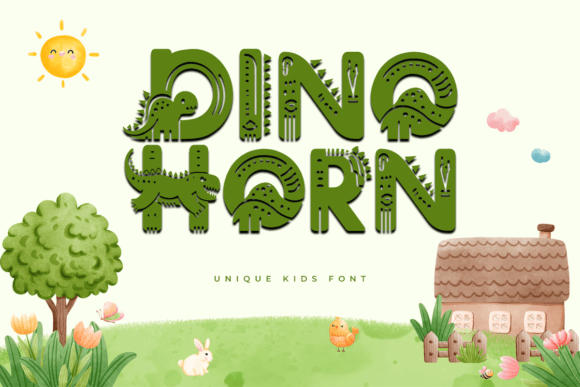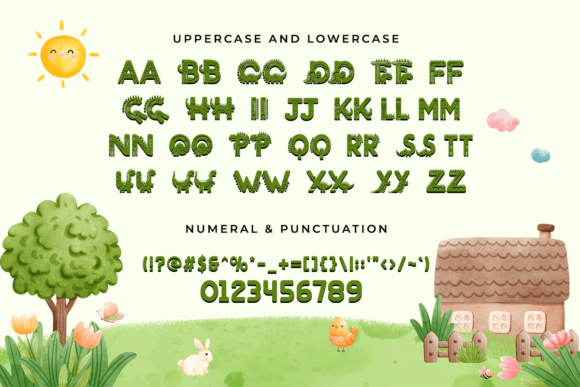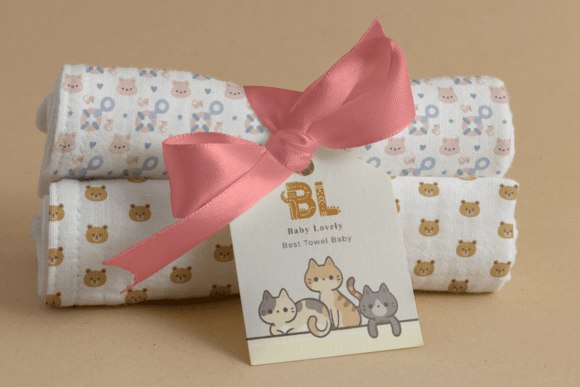
Unleash the Roar of Creativity with Dino Horn Font
Who hasn’t dreamed of being a paleontologist, uncovering hidden treasures and discovering the secrets of the ancient world? As a designer, you’ve likely found yourself in this very moment, searching for the perfect font to bring a touch of excitement and whimsy to your projects. That’s where the Dino Horn Modern Dino Kids Font comes in – a captivating and contemporary font designed to transport you and your young audience back in time to a world of prehistoric wonder.
This delightful font is perfect for children’s books, educational materials, party invitations, and more, featuring playful dinosaur characters with charming horns that add a unique touch to every letter. As a designer, you’ll love the flexibility and creativity that Dino Horn Font offers, making it an invaluable addition to your toolkit.
Dino Horn Font Key Features
- Unique Characteristics: The Dino Horn Font features a distinctive, hand-drawn design with a playful and whimsical feel, making it ideal for children’s books, educational materials, and other projects that require a fun and engaging tone.
Dino Horn Font Review
First off, I want to say that I love the unique concept behind Dino Horn Font. It’s a fun and quirky font that’s sure to stand out in any project. Here’s what I think works well:
- ✨ The font’s bold and playful feel is perfect for kids’ books, educational materials, and other projects where a fun and approachable tone is desired.
- ✨ The font’s versatility allows it to be used for both body text and headings, making it a great choice for designers who want a consistent look throughout their project.
- ✨ The font’s pre-made combinations of lettering and horn decorations make it easy to add visual interest to text without having to do a lot of custom design work.
- ⚠️ The font’s bold feel can sometimes make it difficult to read in smaller sizes or at a distance, so it’s best to use it in larger formats or with careful typography.
- ⚠️ The font’s quirky nature may not be suitable for more formal or professional projects, where a more traditional or conservative tone is desired.
- ⚠️ Some users may find the font’s pre-made combinations to be too restrictive or limiting, especially if they want to create a more custom or unique look.
Overall, I think Dino Horn Font is a great choice for designers who want a fun and playful font that’s perfect for kids’ projects or other fun and creative endeavors. Just be aware of the potential limitations and use it wisely!
Combine the Dino Horn Font with other fonts to create a unique and playful typography style.
Use the font to add a fun and whimsical touch to your designs.
Children’s book covers and illustrations
Party invitations and decorations
Children’s product packaging and branding
Alternatives to Dino Horn Font
Pacifico is a beautiful, elegant script font that can be used for headings and titles. It’s ideal for designs that require a touch of sophistication and refinement. When to use: for luxury brands, weddings, and high-end products. Comparison to Dino Horn Font: Pacifico has a more refined and polished look compared to Dino Horn Font’s rugged and playful feel.
Great Vibes is a modern, cursive script font that’s perfect for creating a sense of excitement and energy. It’s great for headings, titles, and quotes. When to use: for events, music festivals, and youth-oriented brands. Comparison to Dino Horn Font: Great Vibes has a more dynamic and energetic feel compared to Dino Horn Font’s more laid-back and casual vibe.